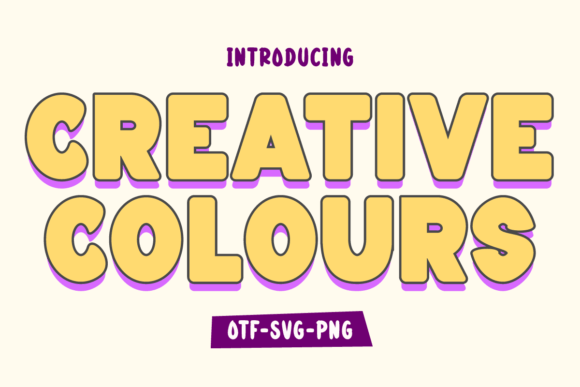
Creative Colours, Playful Marker Brush Font
Creative Colours is a decorative color font that brings a vibrant, retro‑style flair to your designs. Its bold, stylized letterforms — combined with multi‑color or layered effects — make it perfect for fun and creative projects. Whether you are working on apparel, print, packaging, or digital graphics, Creative Colours delivers a cheerful, eye‑catching look.
Creative Colours gives your designs instant personality and visual impact with minimal effort. The color version is perfect for playful, vibrant projects and decorative text — ideal for greeting cards, posters, and social media graphics. Meanwhile, the basic version ensures compatibility with cutting machines and merchandise workflows. As a free font with commercial‑use allowance under its license terms, it’s a great resource for indie creators, Etsy sellers, POD businesses, and hobbyists looking for standout typography without extra cost. :contentReference[oaicite:3]{index=3}